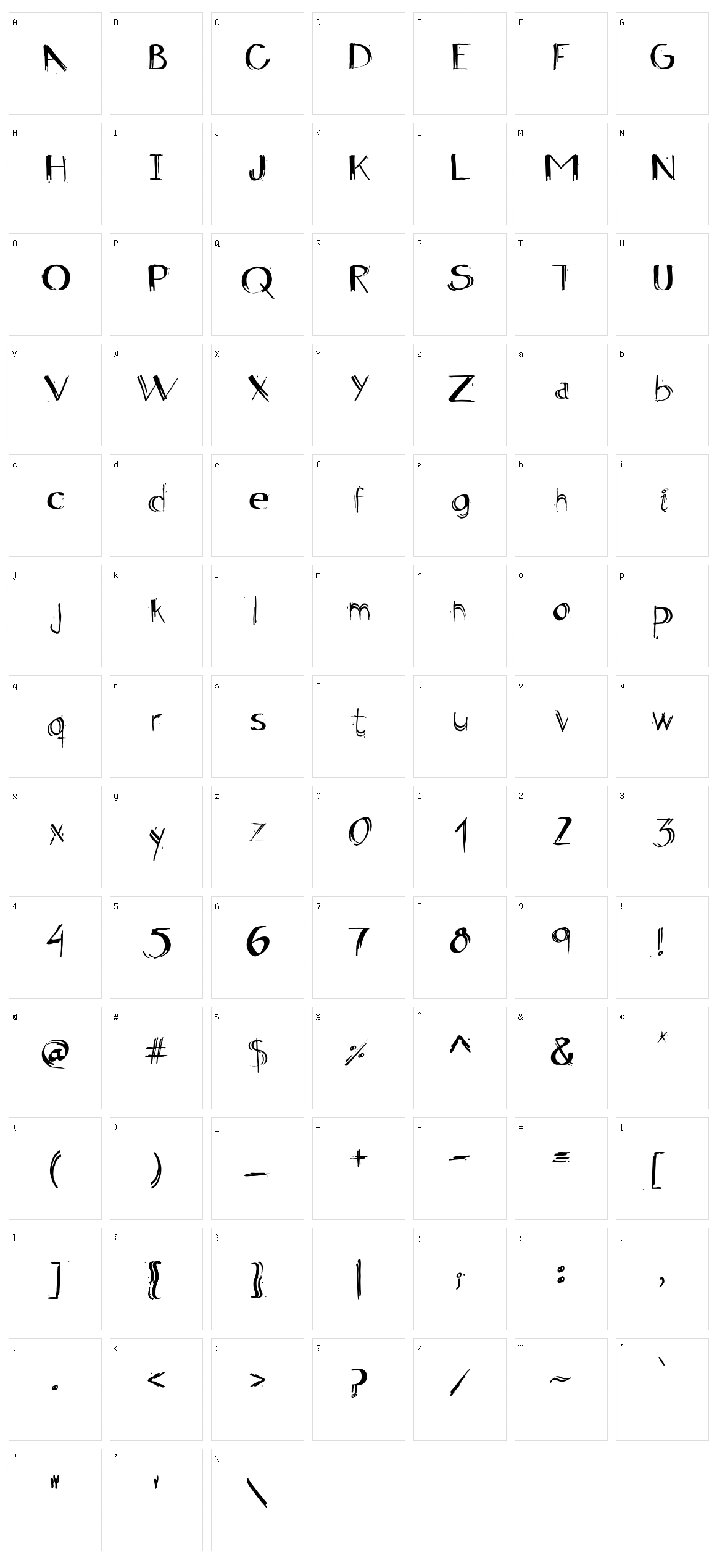
The free font Artmar is carefully designed by Nina, showcasing a thoughtful balance of creativity and usability and falls under the Distorted font style. When you download the ZIP file, it contains only 85.17 KB of font files, making it lightweight and quick to download. Please review the license details below to understand permitted usage and distribution rights. If license information is not available, we recommend using this font for personal projects only or contacting the author directly for commercial usage permissions.